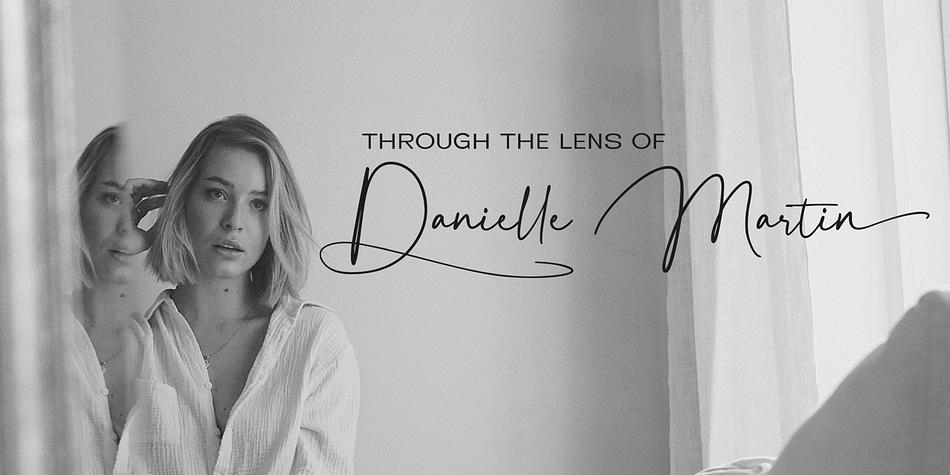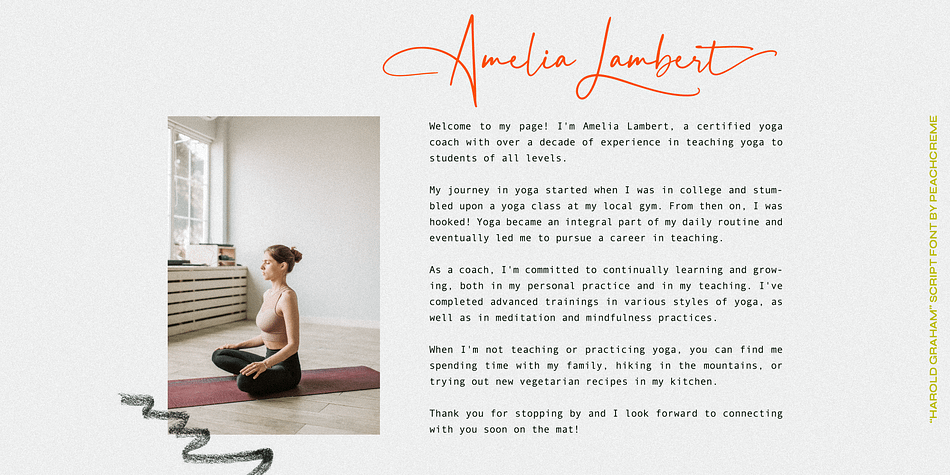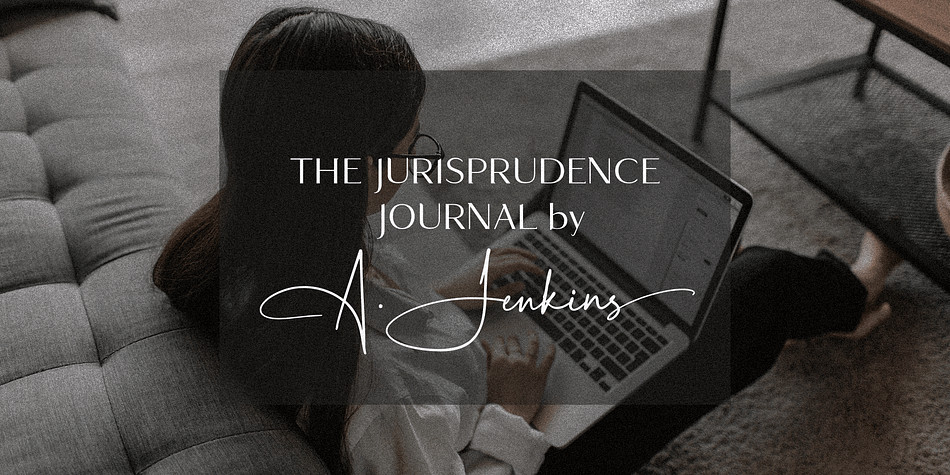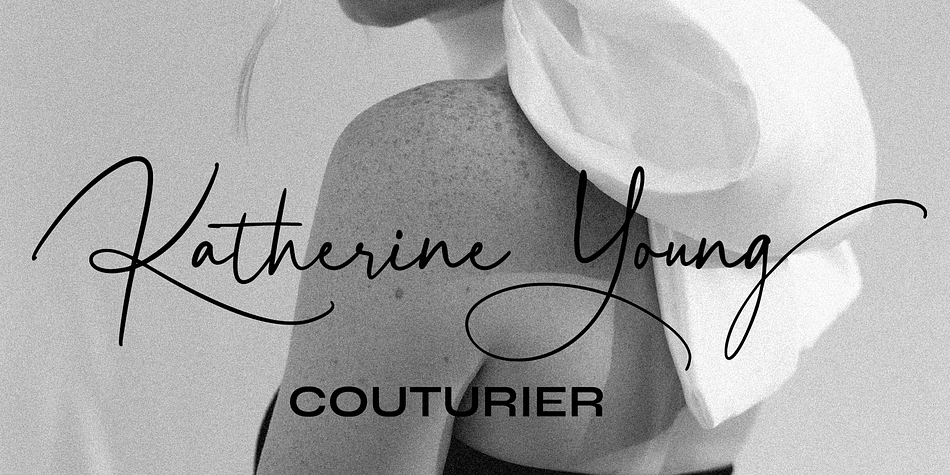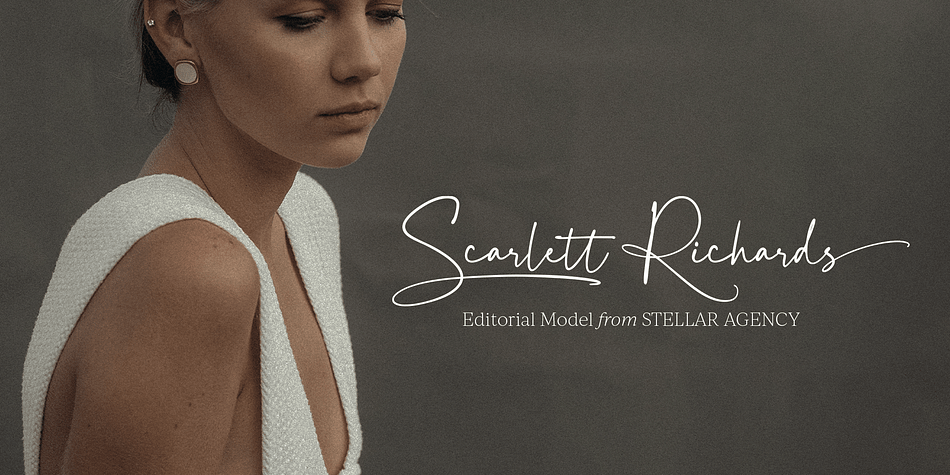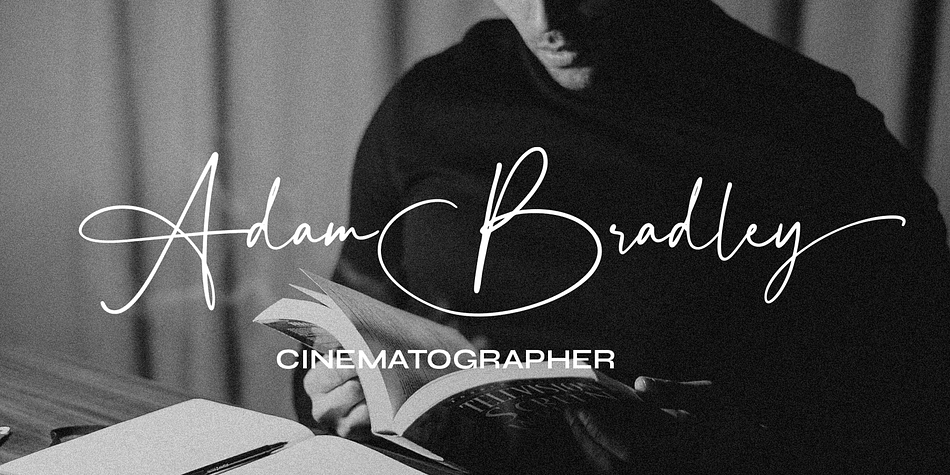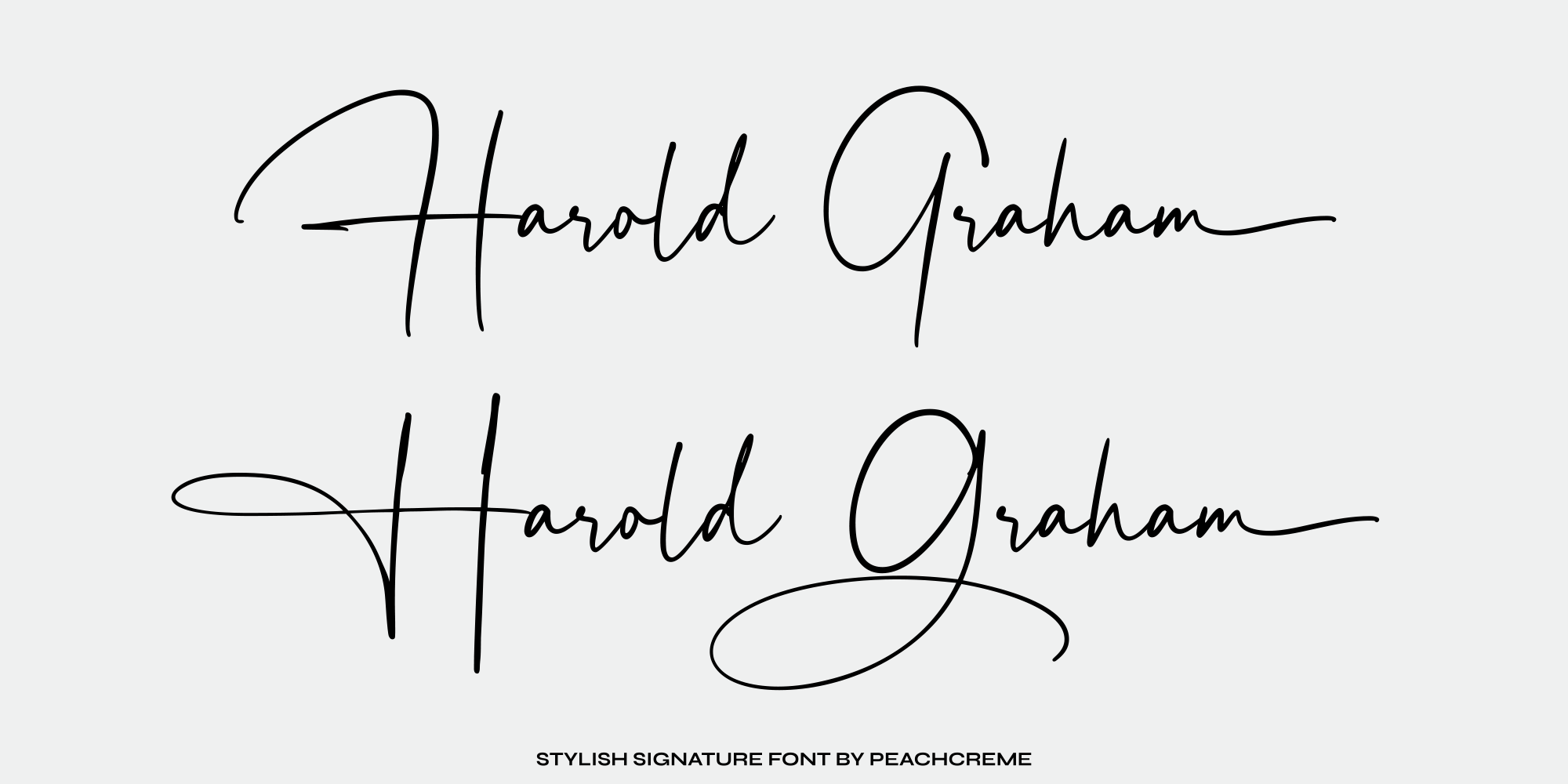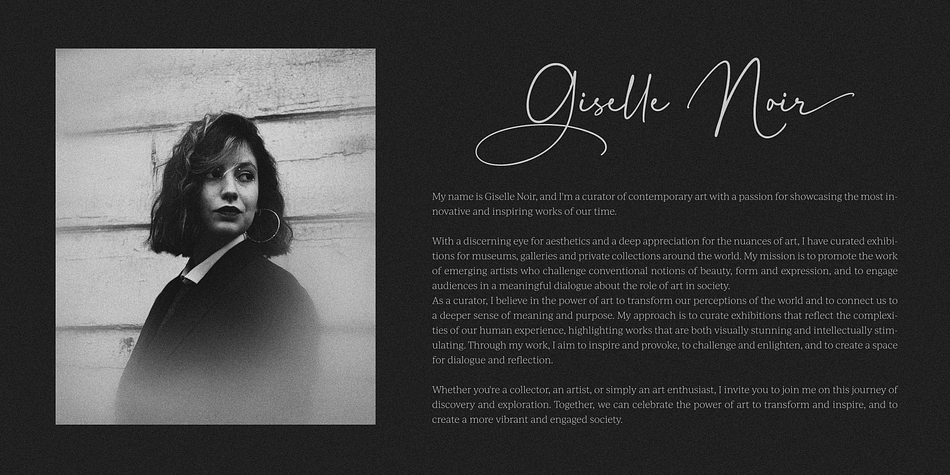
Harold Graham
Harold Graham is a modern calligraphy font family published by PeachCréme.
“Harold Graham” font is a meticulously crafted piece of typography that embodies understated elegance and refinement. With its alternative uppercase letters and ending swash lowercase, this font offers a subtle yet impactful way to customize your text.
Its versatility makes it suitable for a range of design applications, from high-end invitations to sophisticated branding materials and beyond.
“Harold Graham” represents the intersection of style and functionality, with a focus on impeccable design and attention to detail. It’s a font that invites the viewer to appreciate the nuances of its intricate form, while simultaneously conveying a sense of understated sophistication.